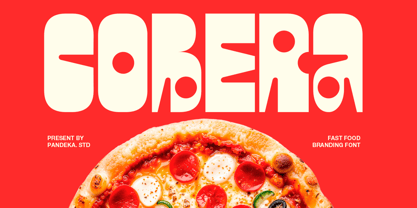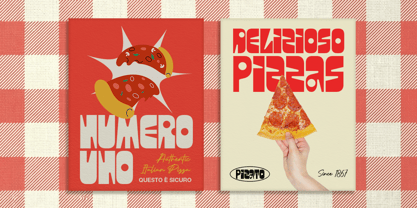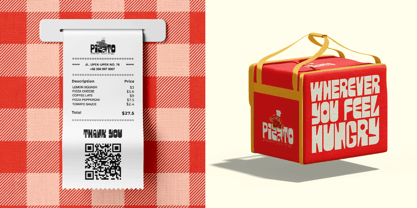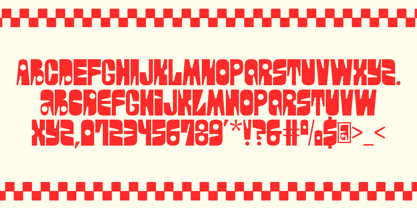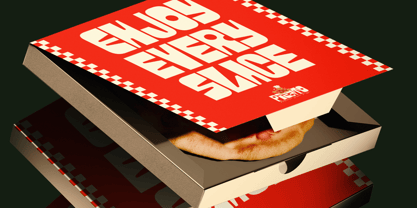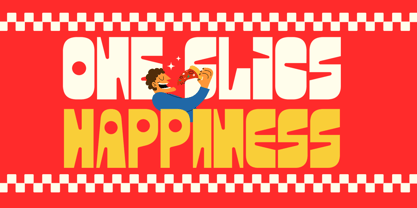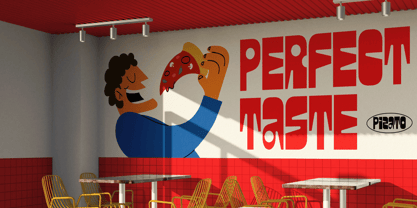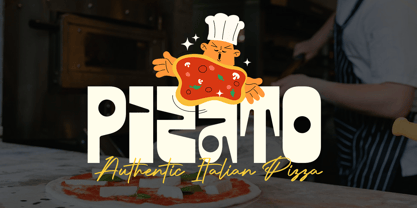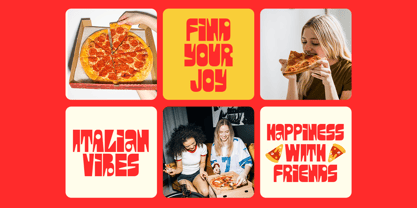
Cobera
La familia tipográfica Cobera fue diseñada por Sagara Nararya y publicada por Pandeka Studio. Cobera contiene 1 estilos. Más información sobre esta familia
Cobera is a bold and playful fast food branding font designed to capture attention instantly. With its chunky letterforms, rounded edges, and high-impact shapes, Cobera delivers a fun, energetic, and appetizing visual style—perfect for food brands that want to stand out and feel memorable. The font’s strong personality brings a sense of joy, warmth, and deliciousness to every design.
Designed in a single Regular style, Cobera is highly versatile and easy to use across various media. It works perfectly for pizza brands, burger shops, snack packaging, food menus, restaurant logos, food trucks, posters, signage, social media promotions, and playful advertising visuals. Cobera is the ideal choice for creating bold food branding with a friendly and inviting tone.
• 1 Style: Regular
• Full Character Set: Uppercase, lowercase, numbers, symbols, and punctuation